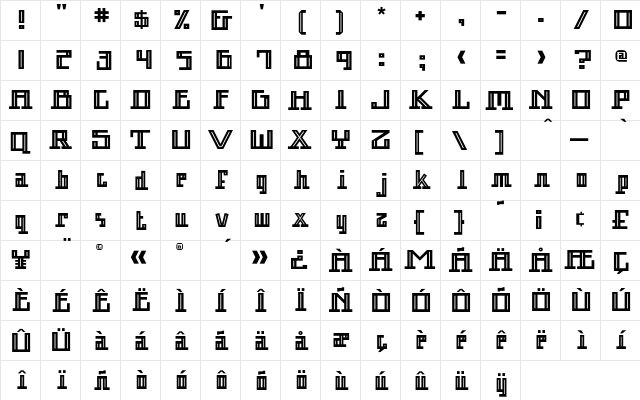
Arcturus Inline
Design Context for Arcturus Typeface
Arcturus brings ornamental detail and strong personality to headlines and identities, where visual impact matters more than quiet functionality.
Font Pairing: Pair with a clean neutral sans-serif for body copy to let Arcturus's character lead without overwhelming the composition.
Pro Tip: Treat Arcturus as the centrepiece of your typographic hierarchy. One strong heading set in a decorative face can carry an entire layout.